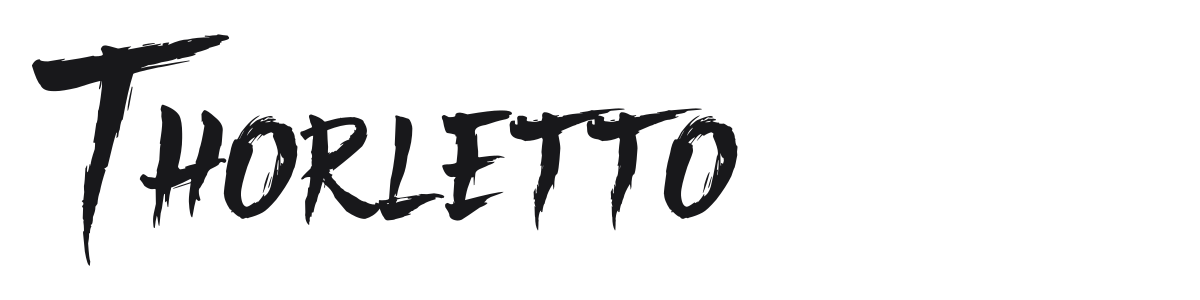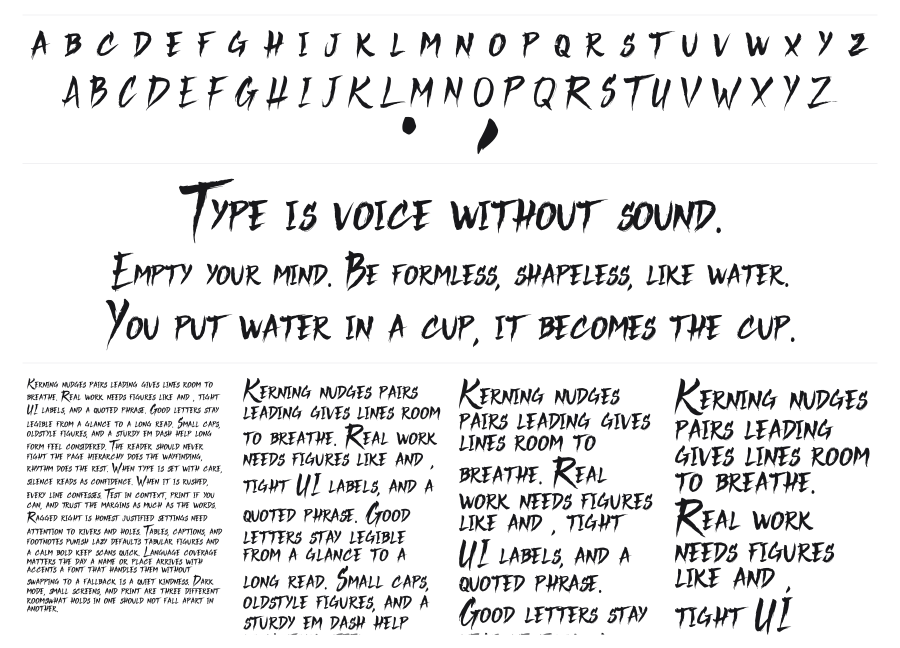
Thorletto
Thorletto is a heavy ink-brush display font with raw, frayed strokes and strong calligraphic energy. The characters carry visible bristle texture and irregular edges that give every word a sense of speed and force. It draws from East Asian brush calligraphy traditions, reinterpreted through a bold Latin uppercase design.